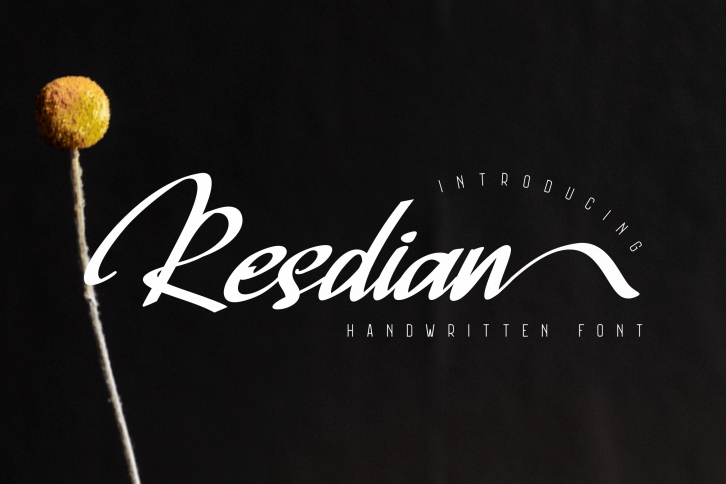
Resdian is a dazzling script font. This font is neatly crafted and highly detailed. Whatever the topic, this font will be a wonderful asset to your font library, as it has the potential to enhance any creation.